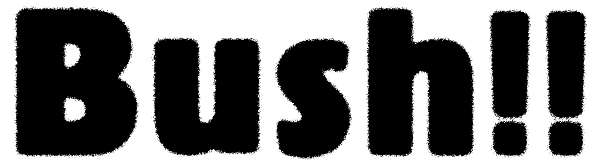
Bush!!
I drew this font on the computer, and added a few effects for the finishing touches. I named it "Bush!!" just because that is kind of what it looks like.